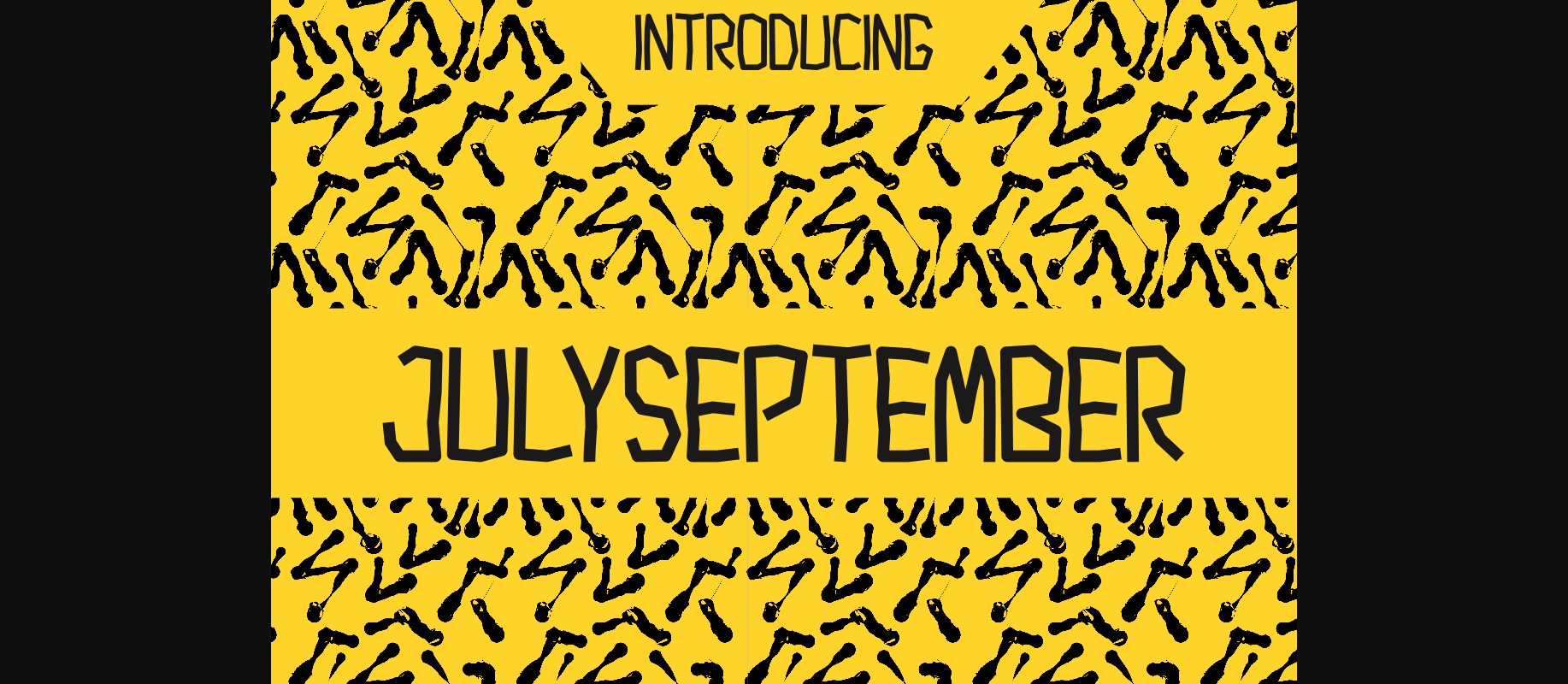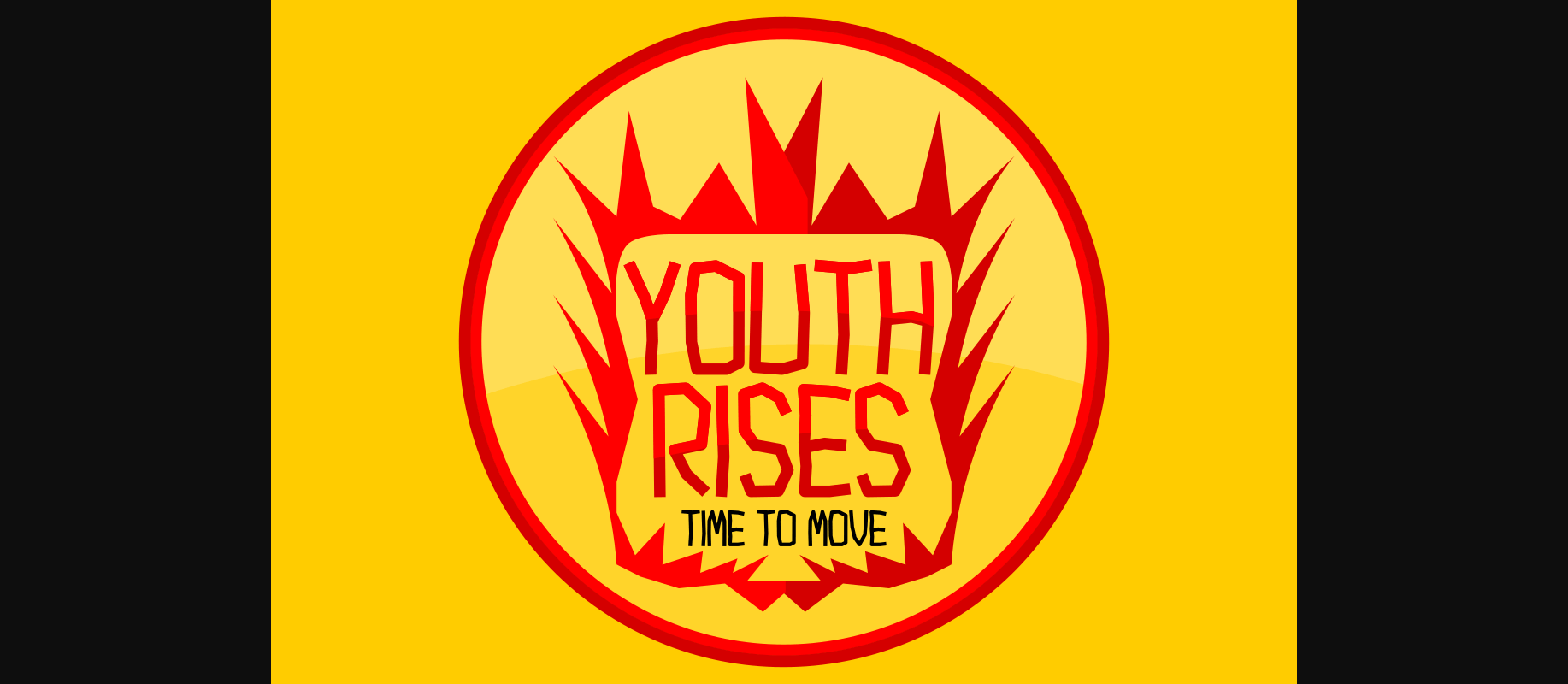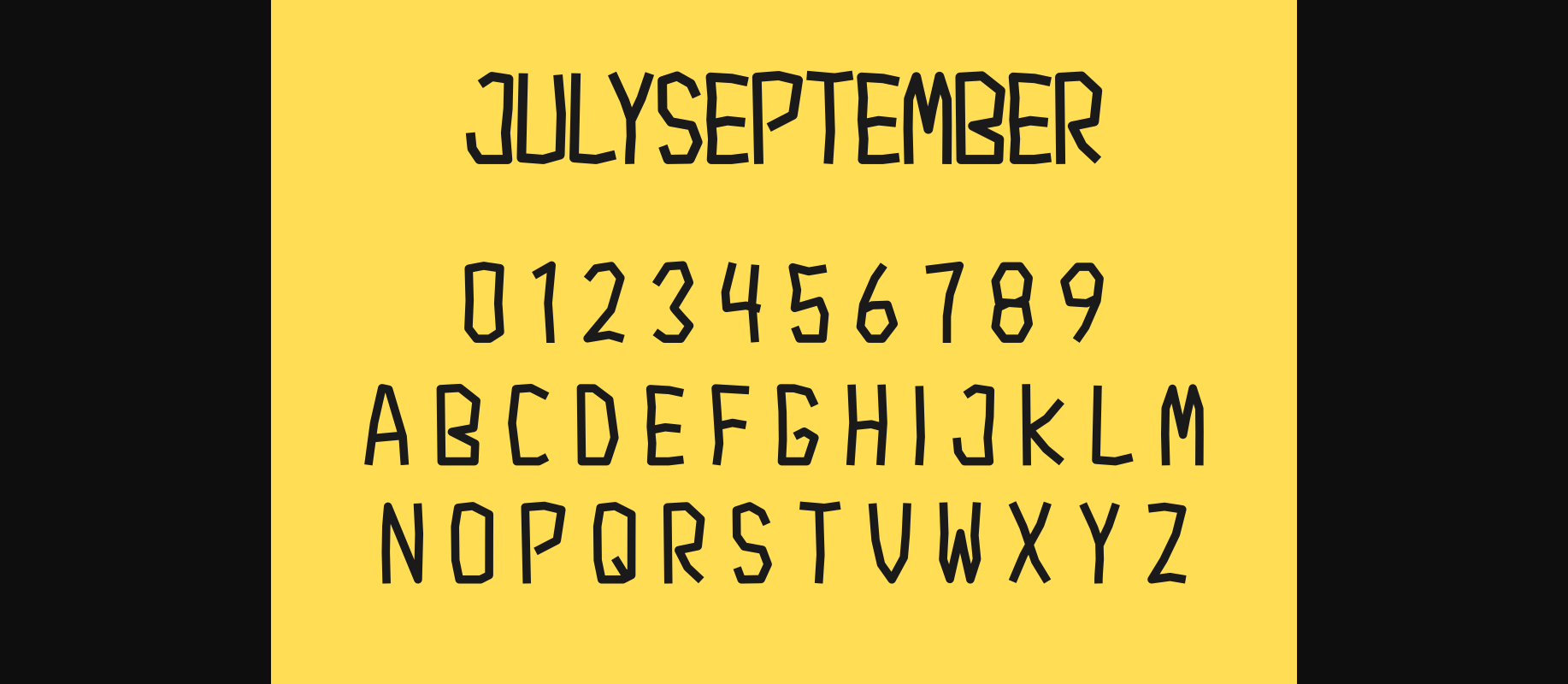
HomeDecorative FontsJulyseptember Font Decorative Fonts Julyseptember Font FacebookXPinterestWhatsApp 1 of 5 ... Julyseptember Font Poster 2... Julyseptember Font Poster 3... Julyseptember Font Poster 4... Julyseptember Font Poster 5... About Julyseptember Font This font is for those who need a font with characters that is light and easy to read both on paper and on your website or gadget. It will increase your passion for work, on whatever type of project you are working on. DOWNLOAD NOW People also explored Remember Font Explore Adventure Font Roxanne Elea Font Goldthe Font Kid Story Font Sweater by Santa Font Depot Font Sinday College Font Jullia Monogram Font 336 0 TagsJulyseptember Font Previous articlePeace FontNext articleEastkim Font LEAVE A REPLY Cancel reply Comment: Please enter your comment! Name:* Please enter your name here Email:* You have entered an incorrect email address! Please enter your email address here Website: Save my name, email, and website in this browser for the next time I comment. Personal Use Free The Royal Personal Use Free Read more about this font Capellen Personal Use Free Read more about this font Indonesia Dermawan Personal Use Free Read more about this font Consequences Personal Use Free Read more about this font BLOG Free Fonts Risk: Why Free Fonts Can Be Dangerous for Designers Free Fonts Risk: Why Free Fonts Can Be Dangerous for Designers Using free fonts is a common practice in web and graphic design. However, the... Exploring Font Trends Fonts That Capture the Spirit of New York City Top 10 Handwritten Fonts That Elevate Your Designs